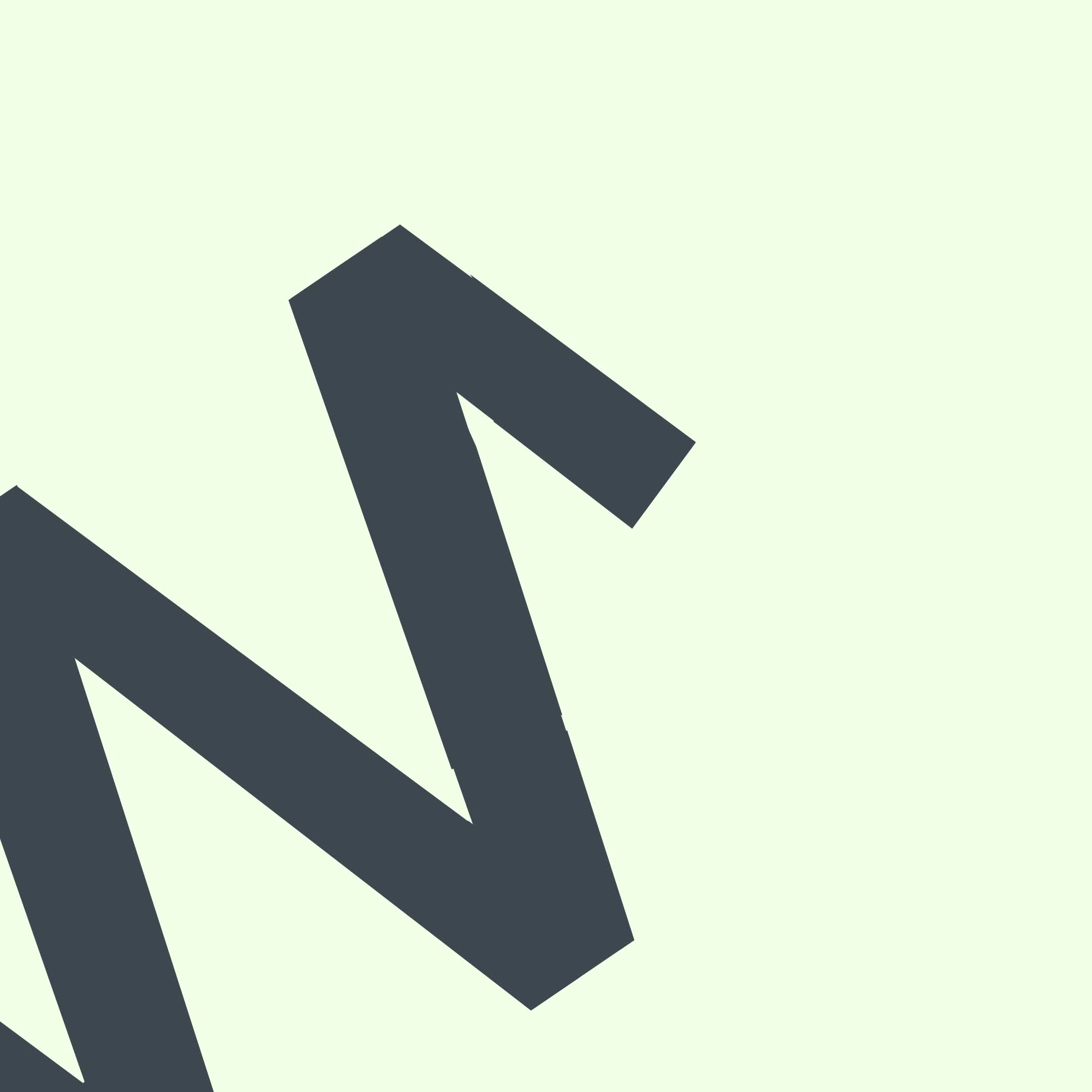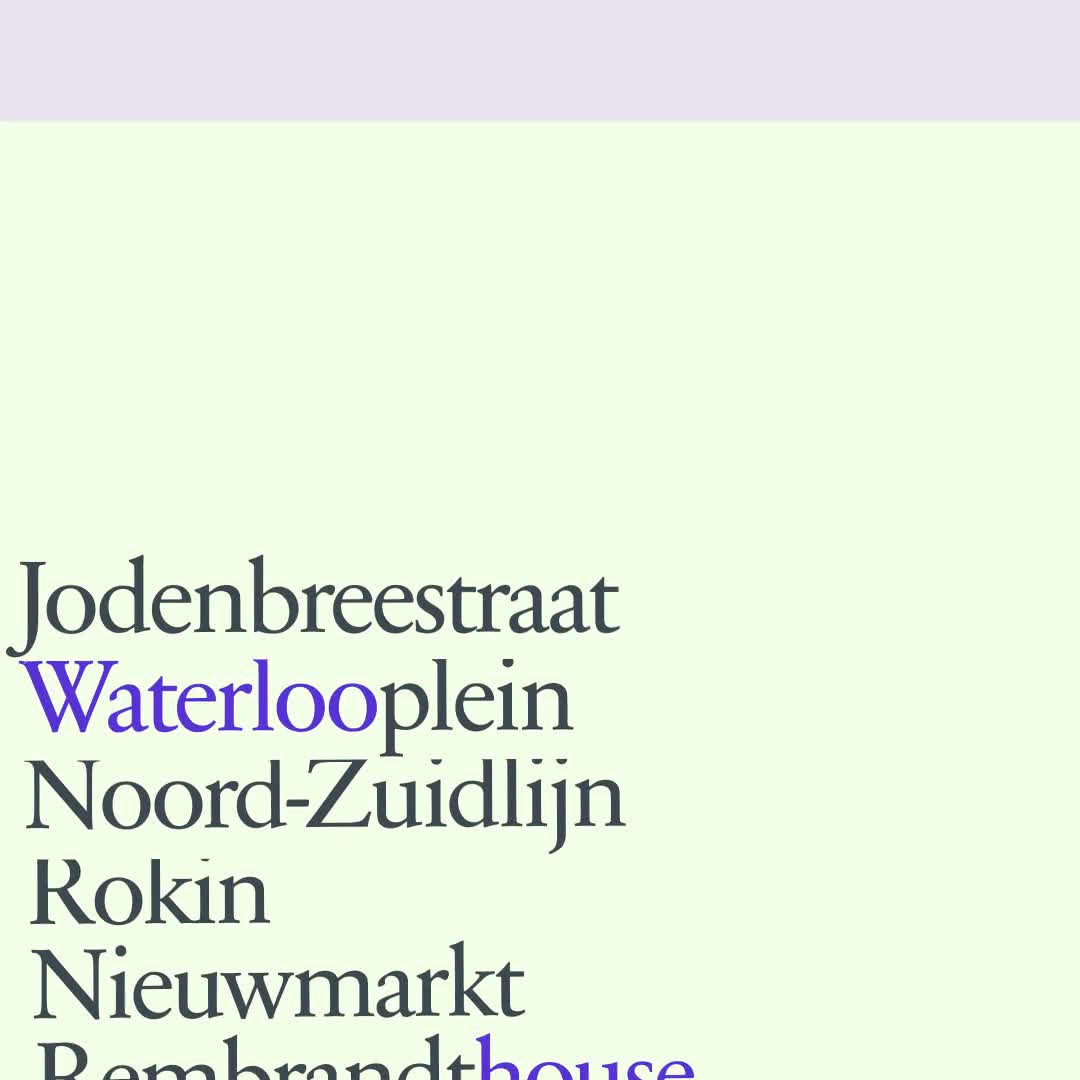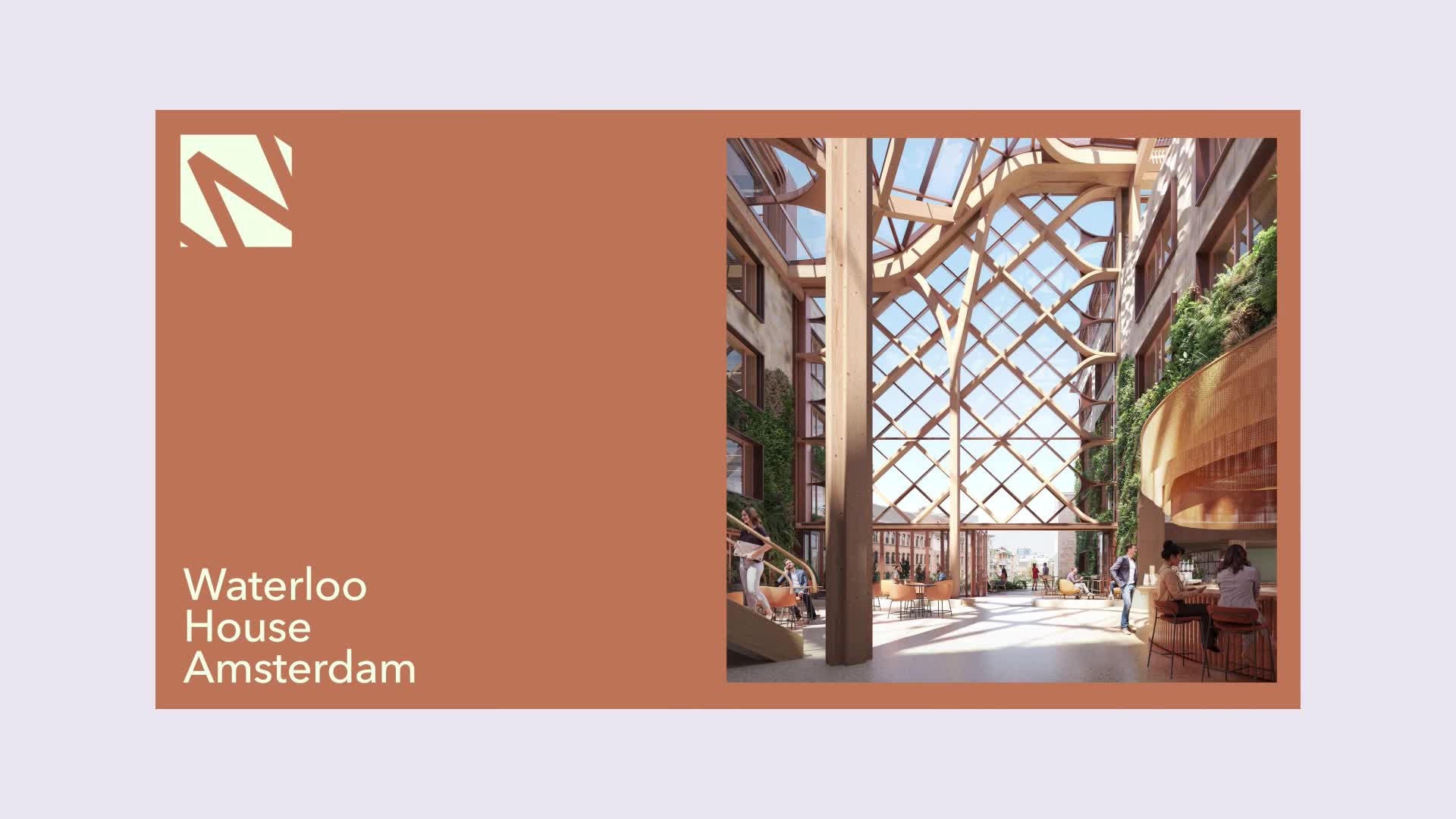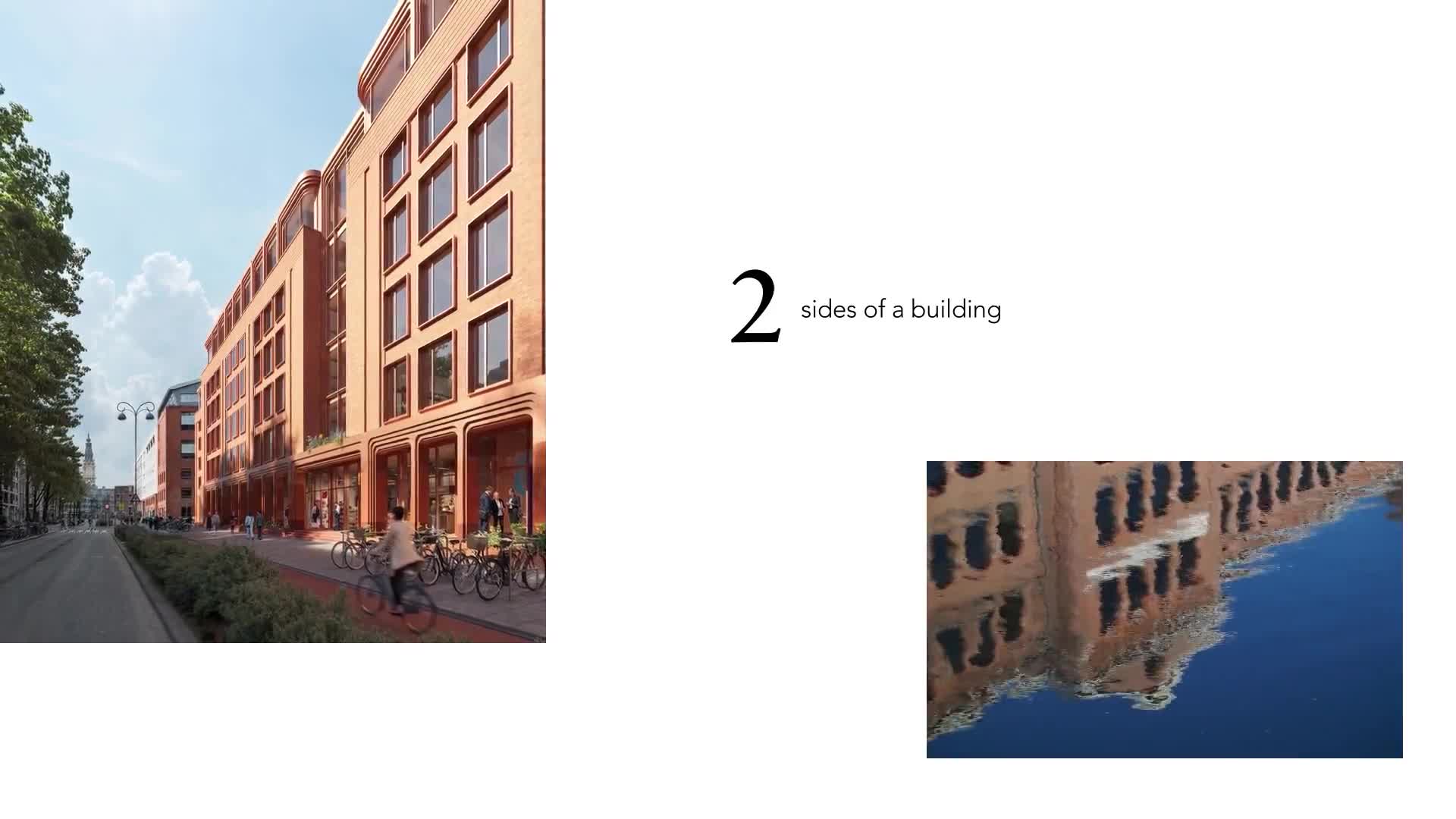
Waterloo House
by Jetway
Using Amsterdam's official Avenir Next with Sabon Next for instant civic grounding. Subtle way to feel established without trying. Stealing that municipal type trick.